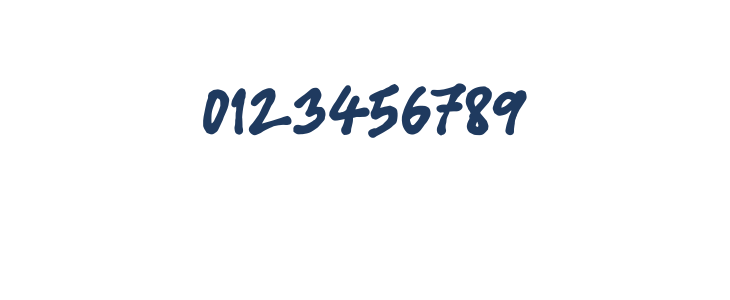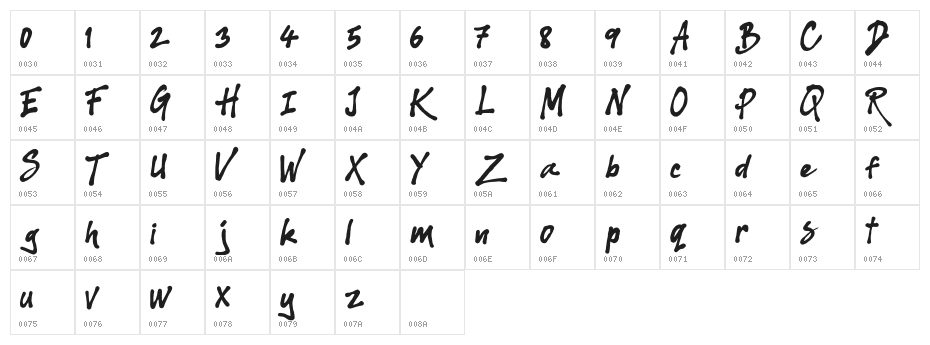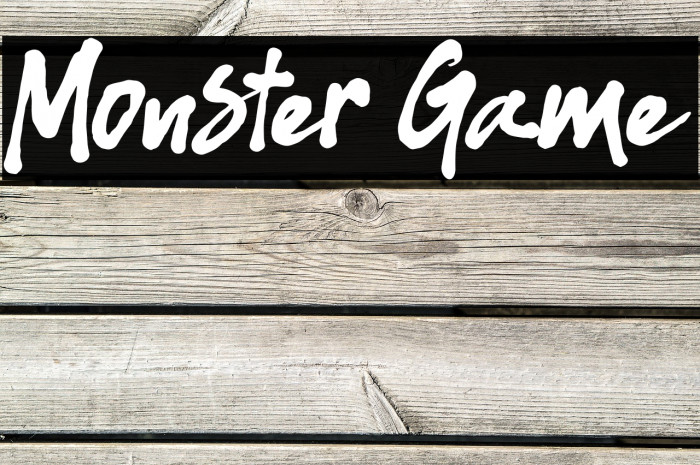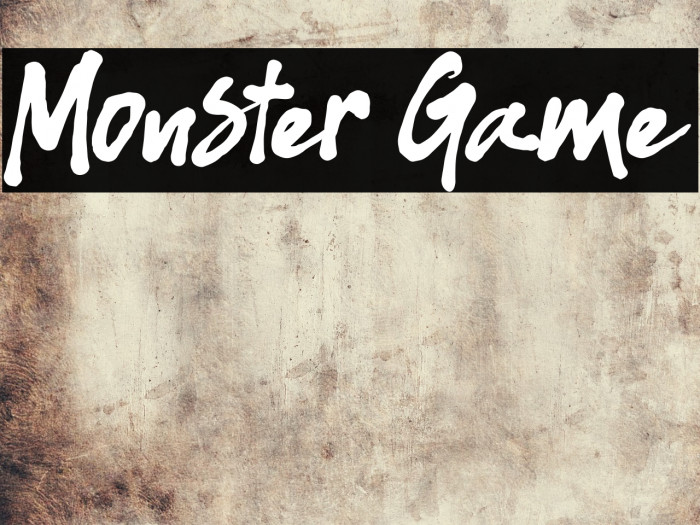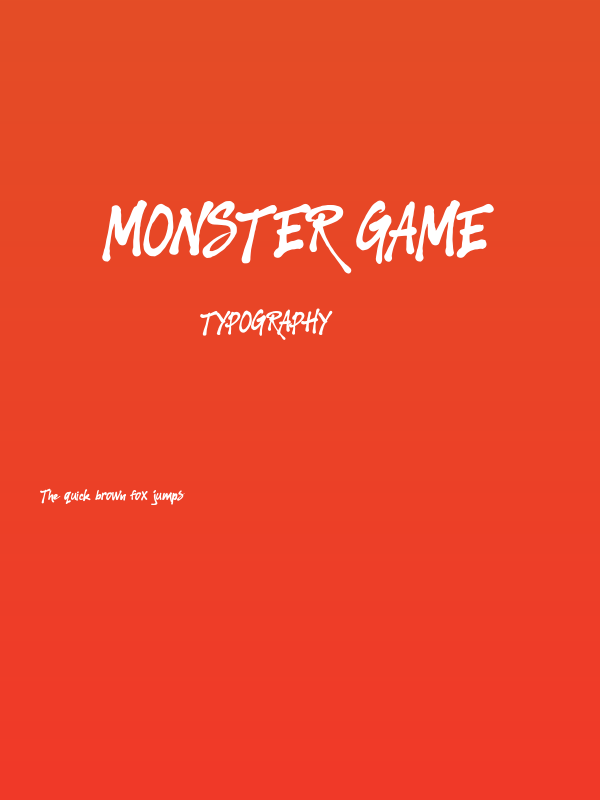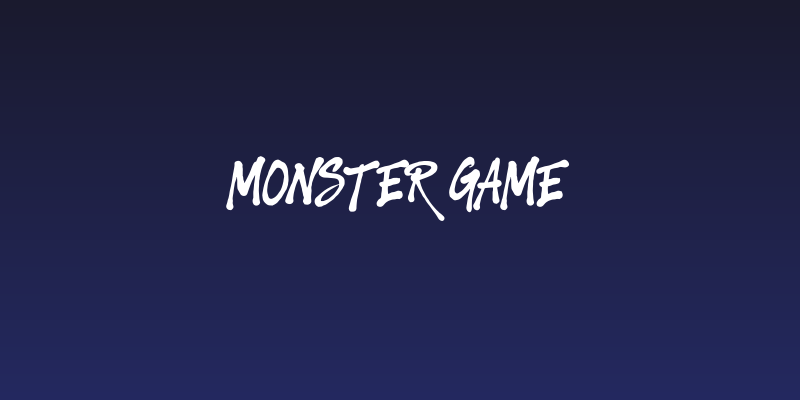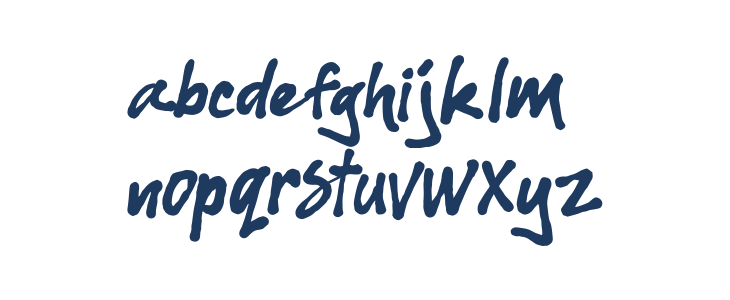
Monster Game Font
Monster Game Description
This font exhibits a bold, energetic style with a handwritten appearance, characterized by its dynamic and fluid strokes. The uppercase and lowercase letters maintain a consistent flow, giving a sense of movement and spontaneity. The numbers and special characters are crafted with the same lively flair, ensuring uniformity across all characters. The strokes are thick and expressive, contributing to a high contrast between the thick and thin parts of each character. This style is reminiscent of a casual, yet impactful handwritten note, making it ideal for projects that require a personal touch.